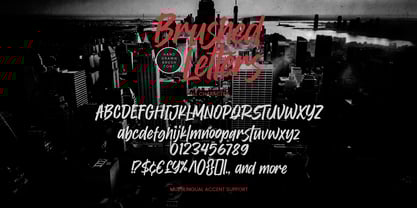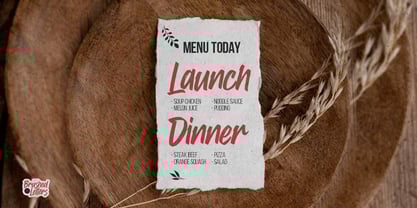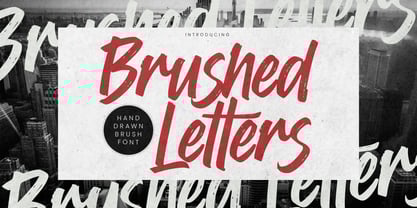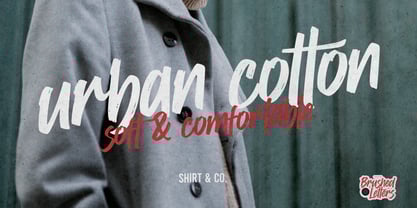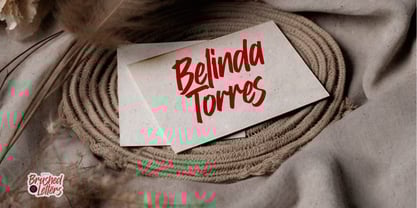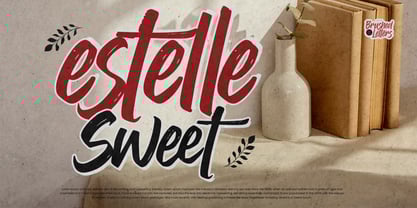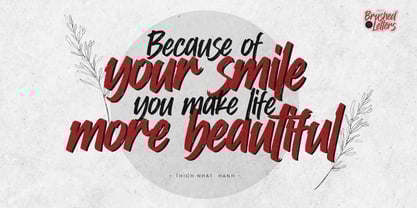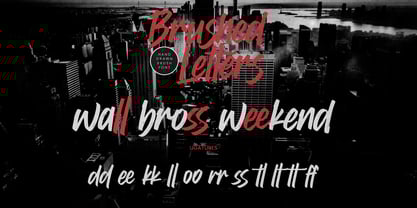
Brushed Letters
La familia tipográfica Brushed Letters fue diseñada por Abdul Malik Wisnu y publicada por Gassstype. Brushed Letters contiene 1 estilos.
Introducing Font Brushed Letters, a hand-drawn brush font that embodies a textured, natural brush style with a classy touch. This versatile font is perfect for a variety of creative projects, including logos, printed quotes, invitations, cards, product packaging, headers, logotypes, letterheads, and posters. Its charming, authentic, and relaxed characteristics add a natural look to your text, making it ideal for watermarks on photography, branding, advertisements, stationery, wedding designs, labels, and special events. Elevate your designs with the unique flair of Font Brushed Letters!
Based in Ambarawa - Semarang, Indonesia, and established in 2020 by Anang Fibriyanto and Malik Wisnu, Gassstype Studio is a foundry that builds tools and types, basically to show and promote his typefaces. He began designing fonts as a hobby in 2017 and specialized in kinds of brush fonts considered more useful and durable with a particular focus on creating easy and clever solutions for designers. Other than fonts, we love any form of creativity, photography, brush lettering, and more